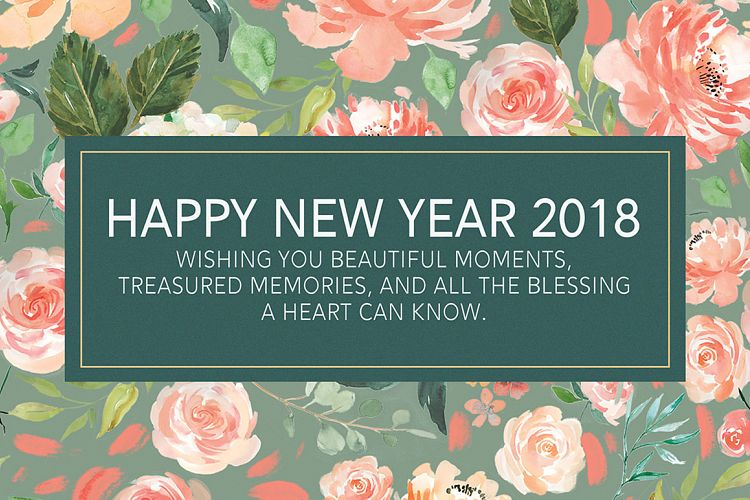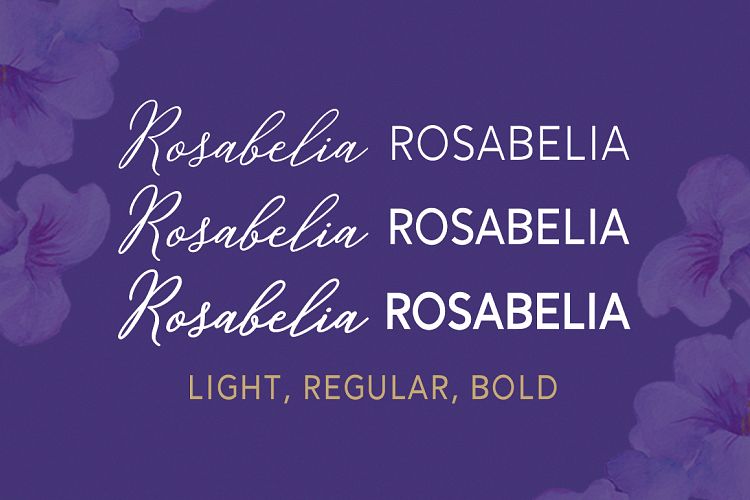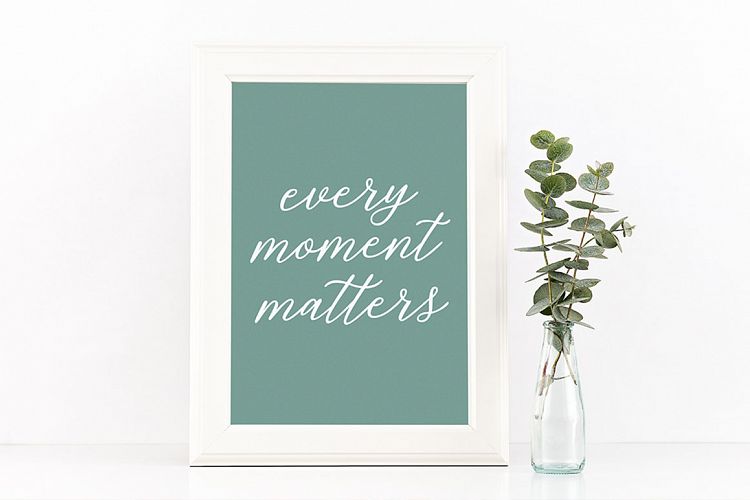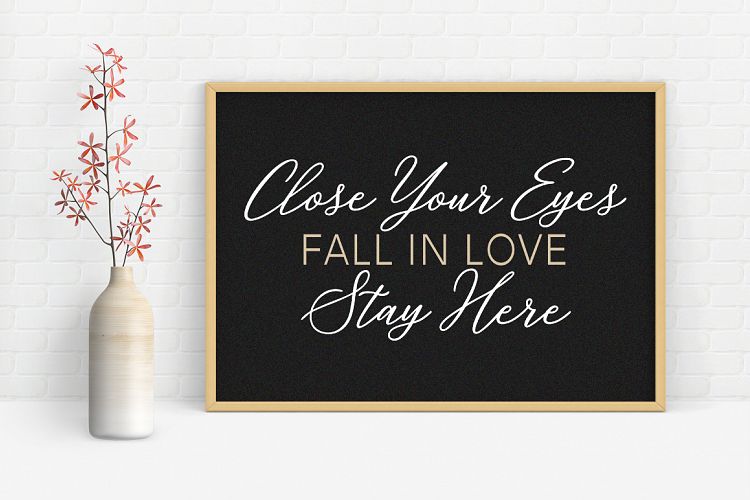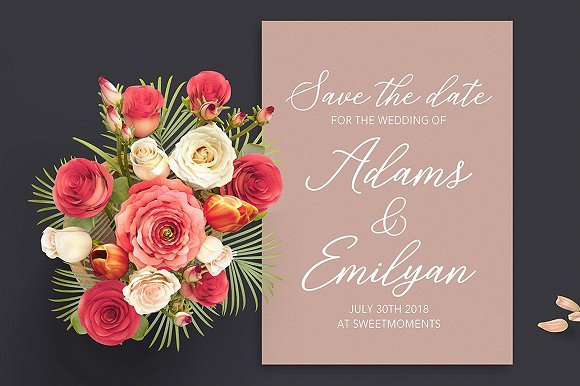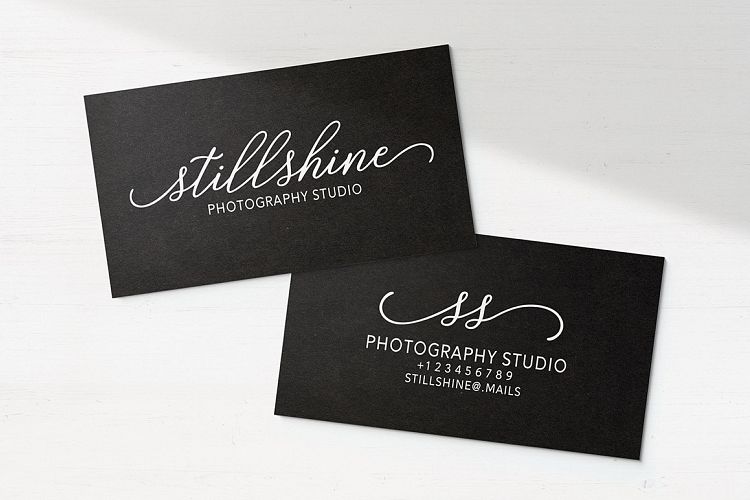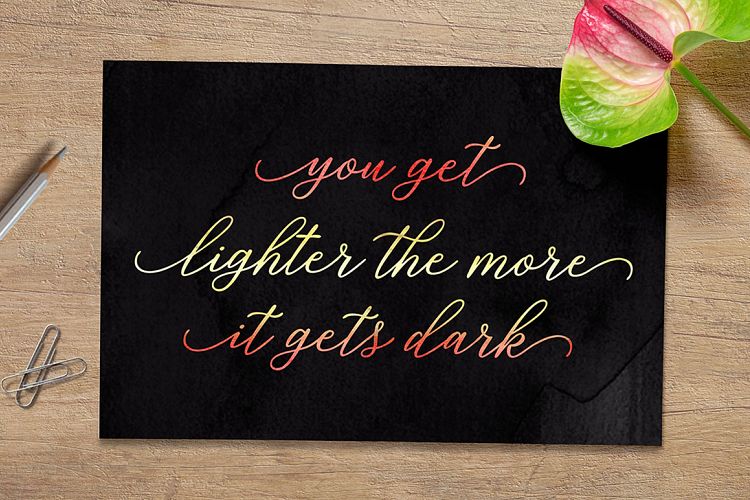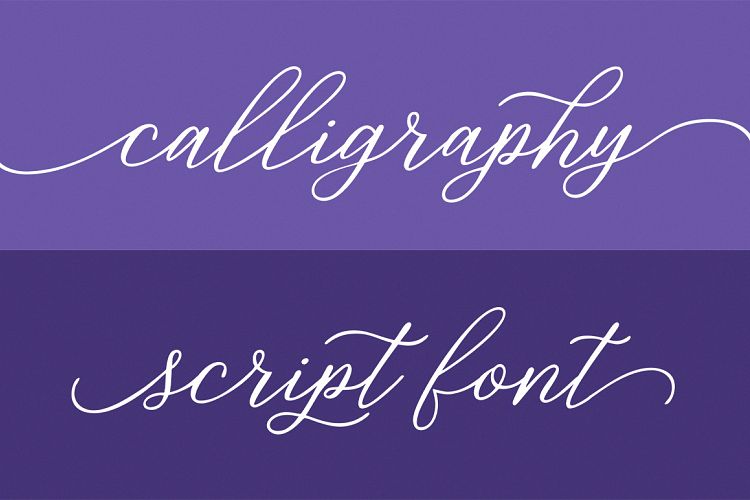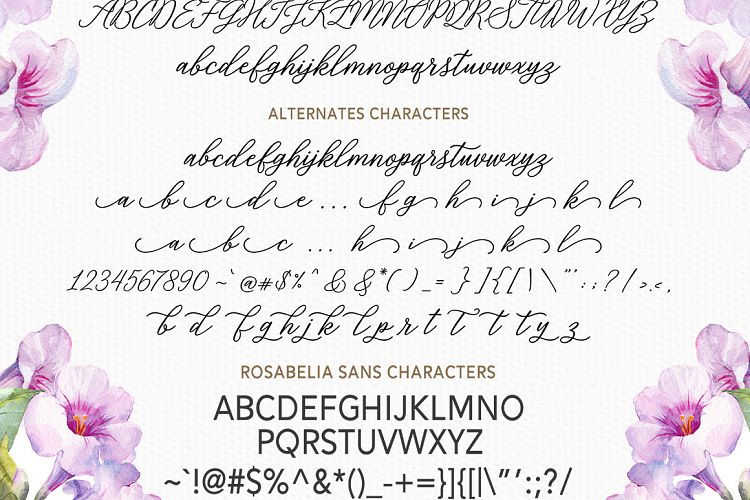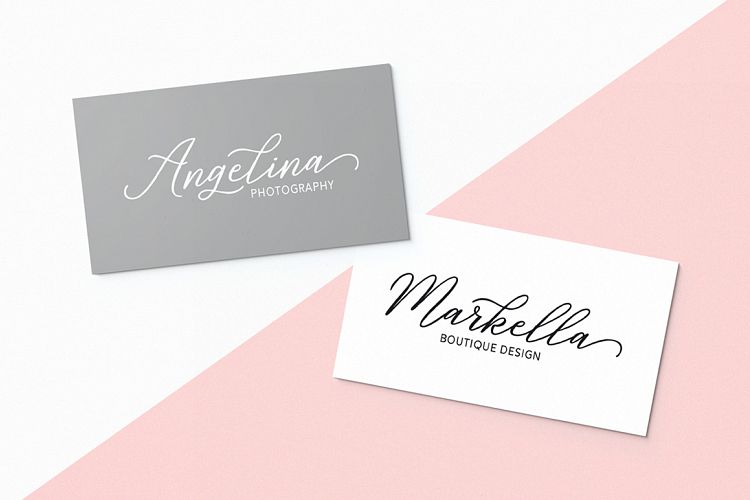
Rosabelia Font
About Rosabelia Font
Rosabelia is a modern script font family hallmarked by elegance and casualness. This font family has a ton of stylistic alternates, ligatures, and swashes for fully realized typography. This font looks gorgeous on special event designs and in print, but can be used in a plethora of ways!